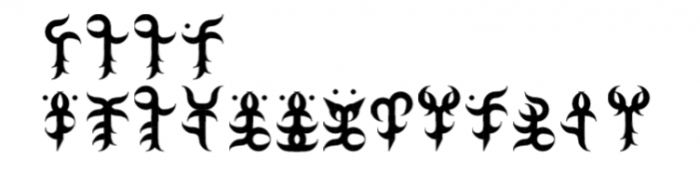
• Vykra is a conlang script based on the concept of a syllabic alphabet and inspired by plants.
The upper case is the plant body, while the lowercase is the root. As such it is necessary to write this script in alternating case (AlTeRnAtInG CaSe) so as to place an upper and lower case letter together.
The full stop symbol is used for words consisting of one letter to provide a root.
hey lokiT, sorry i haven't gotten back to you in such a long time, I'm sure you understand what with thanksgiving madness and such. anyway, liiike the new conlang script and I've been trying to find a way to convert unlu into a more flowing script.
also, what's the big black glyph at the beginning?
In orer to build a script that would allow two glyphs to sit on top of one another I had to alter the letter widtha for uppercase letters to 0 so that the lower case would fit underneath. Unfortunately it means that fontstruct bunches them all up in a messy pile!
I am thinking about altering it so that lower case is on the other side of the base lines but it sometimes causes alignment issues.
Glad you like Vykra!
I've always enjoyed these clever fonts that involve alternating caps to do nifty tricks that arent possible with other fonts, like your Vykra here.
I've altered how these are laid out, shouldn't make any difference to the use of the font, just makes it look a little better in fontsrtuct!
C!O!O!L! IeNjOyWrItInGtHeSeLeTtErS!
How do you type the "full stop" symbol? Also how do you type a period?
Full stop is the UK term for a period. To type the fullstop, add a spave and then the period that will add the symbol in.